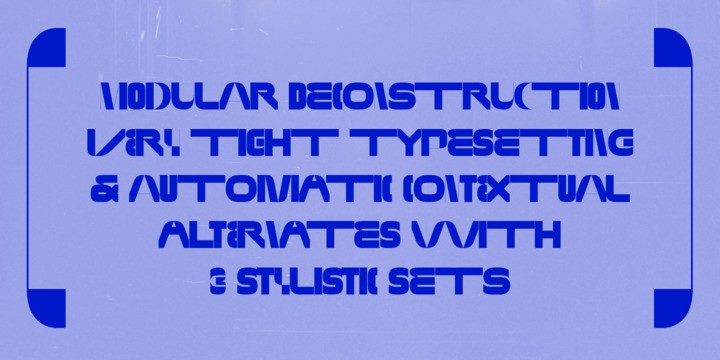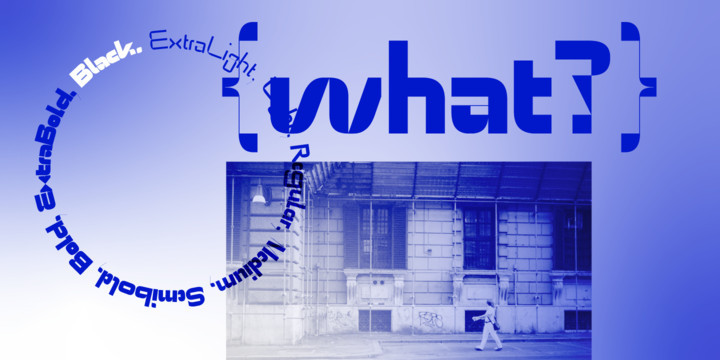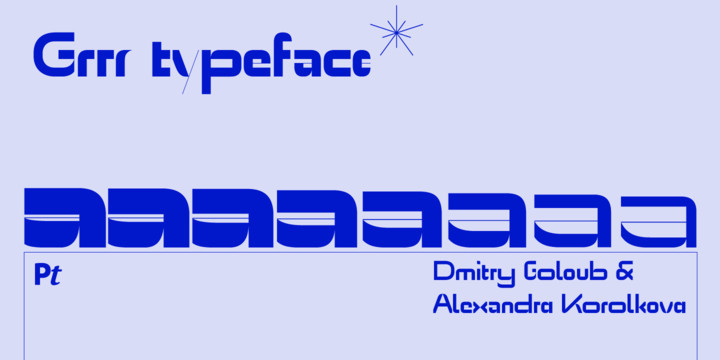
Grrr Font
Grrr is a headstrong modular display typeface with a large amount of alternative glyphs. It consists of eight weights ranging from Thin to Black. A variable font is also available. The typeface is designed on a modular grid and it proudly ignores the rules of optical compensations: the horizontal and vertical strokes have identical thickness, and round and triangular letters have no overshoots at all! All these peculiarities are making the typeface usable at sizes from 21pt and larger in print and approximately from 24px on non-retina screens. Grrr is especially good at extremely large sizes. The typeface includes three stylistic sets with even more bizarre letterforms. These sets activate a cyclic pseudorandom substitution of letters from a range of alternates — the letterforms keep changing as you type! The typeface was designed by Dmitry Goloub and Alexandra Korolkova and released by Paratype in 2019.